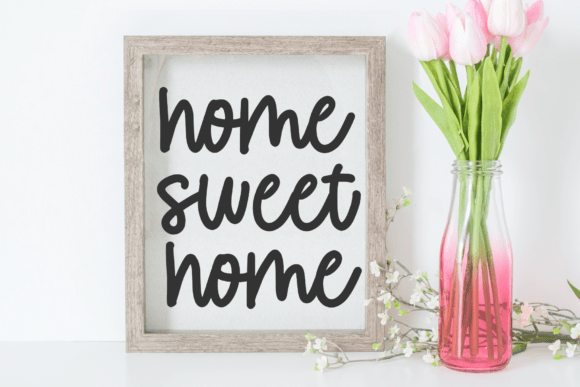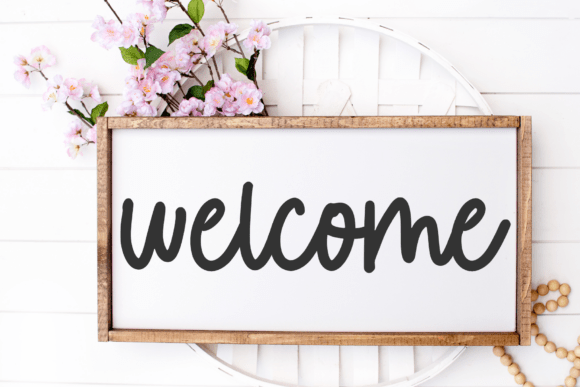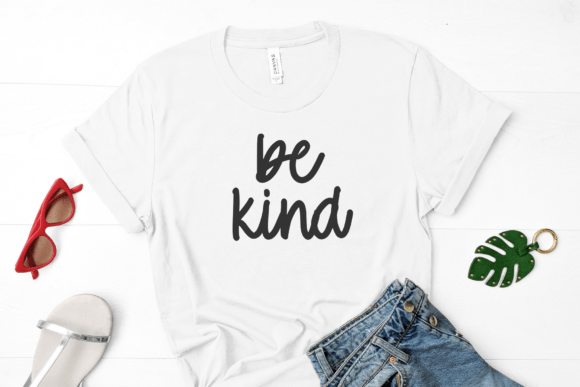
Introduction to Honey Cake Font
Honey Cake, a handwritten script font that effortlessly adds a touch of whimsy to your designs.
Echoing an endearing handwritten appeal, Honey Cake is your perfect your project logo, svg and more .
Key Features of Honey Cake Font